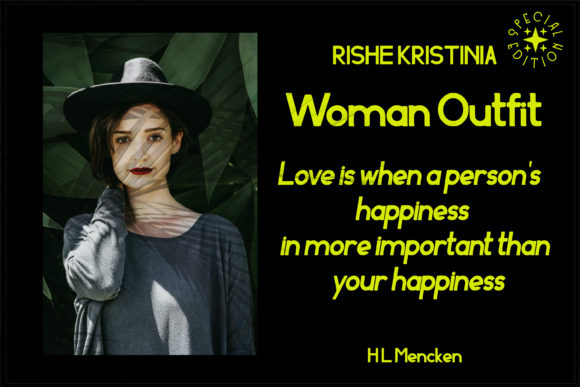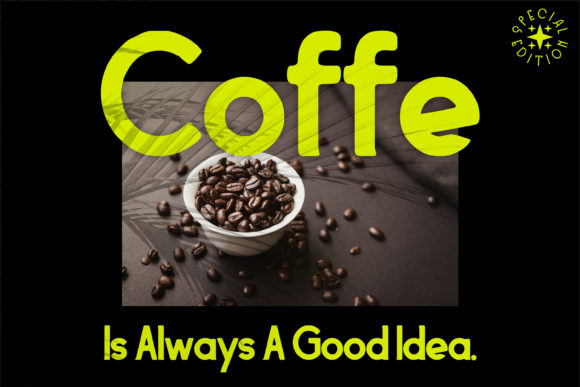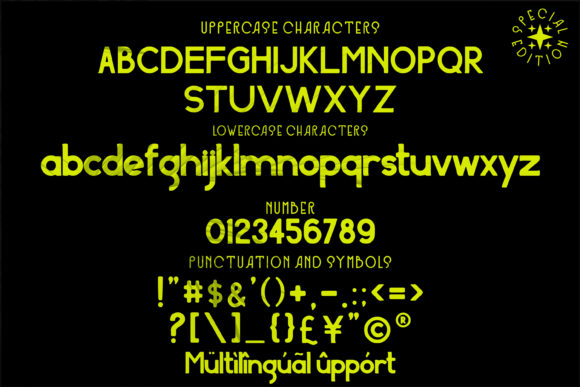
Introduction to Petter Sans Font
Have you ever been brainstorming a creative project and suddenly, the perfect font pops into your mind? For designers, this moment is like finding the missing puzzle piece. It’s the spark that ignites the entire design process. For me, it was discovering the Petter Sans Font – a vintage styled and adaptable sans serif font that instantly elevates any project.
This versatile font is more than just a design element; it’s a game-changer. With its luxurious feel and premium signature taste, Petter Sans Font is the perfect choice for logos, branding projects, homeware designs, product packaging, and even quotes. Its high-quality design makes it an excellent addition to any creative project, and the best part? It’s available for free download, making it an invaluable design resource for designers of all levels.
Petter Sans Font
- High-quality design resource suitable for creative projects, offering a professional and modern look.
- Features a transparent background, allowing for seamless integration with various design elements.
- Designed with a clean and minimalist aesthetic, making it perfect for use in logos, headings, and body text.
- Supports multiple languages, including Latin, Cyrillic, and Greek scripts, making it a versatile design resource.
Honest Review: Petter Sans Font
I recently stumbled upon the Petter Sans Font and was excited to give it a try in my current creative project. As a designer, I’m always on the lookout for high-quality design resources that can elevate my work. Let’s dive into my honest review.
- Wide range of weights and styles available, making it perfect for various design projects.
- Transparent background, allowing for seamless integration with any design.
- High quality, making it suitable for both digital and print designs.
- Not suitable for projects requiring extreme customizations, as the font is quite generic.
- No additional features like ligatures or contextual alternates.
Overall, I’m impressed with the Petter Sans Font. It’s a solid addition to any designer’s toolkit, offering a reliable and versatile font for various creative projects. While it may not be perfect, its high quality and transparent background make it a great design resource to have in your arsenal.
Petter Sans Font
The Petter Sans Font is a high-quality design resource perfect for creative projects. It’s available for free download, making it an excellent choice for designers of all levels.
Tips for Getting the Most Out of Petter Sans Font
To maximize the potential of the Petter Sans Font, use it in combination with other design elements that complement its clean and modern aesthetic. Experiment with different font sizes and colors to create visually appealing designs.
The Petter Sans Font is ideal for a variety of design projects, including branding, logos, brochures, and infographics. Its versatility and high-quality design make it a valuable resource for designers of all levels.